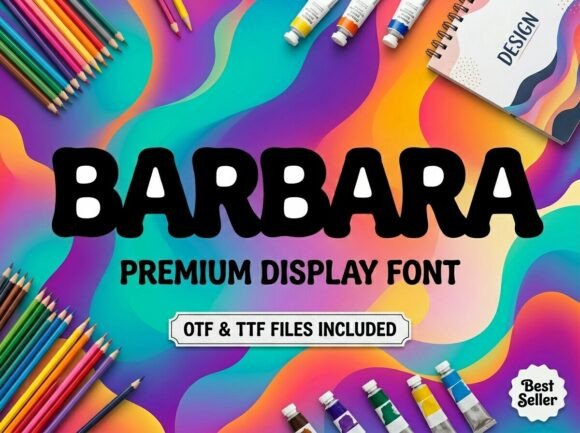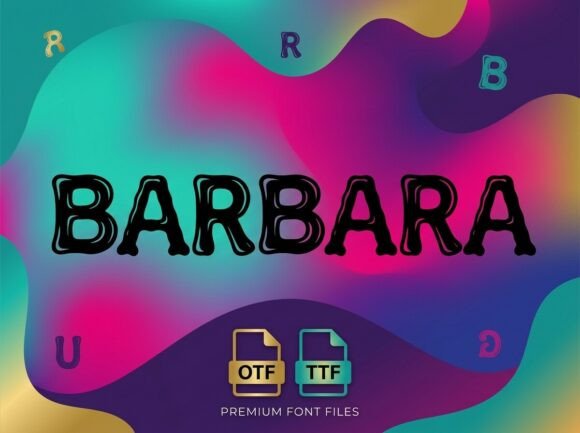
Introducing Barbara Font: A Stunning Decorative Display Font
Are you tired of using the same old fonts for your designs? Look no further than Barbara Font, a unique and artistic display font that’s sure to turn heads. This stunning font is designed to be the center of attention, featuring bold and eye-catching elements that will elevate your designs to the next level.
A Font that Breaks Away from the Ordinary
Barbara Font is perfect for creators who want to add a touch of personality to their work. With its strong visual personality and unique artistic elements, this font is sure to make your designs stand out from the crowd. Whether you’re working on a bold headline, artistic logo, or creative packaging, Barbara Font is the perfect choice.
Versatile and Professional
One of the best things about Barbara Font is its versatility. This font is not only perfect for bold and eye-catching designs, but it’s also professional and polished enough for use in a variety of applications. Whether you’re working on a business logo, product packaging, or marketing materials, Barbara Font is sure to make a lasting impression.
Why Choose Barbara Font?
So why choose Barbara Font over other display fonts on the market? Here are just a few reasons:
- Unique and Artistic: Barbara Font features unique artistic elements that will add a touch of personality to your designs.
- Versatile: This font is perfect for a variety of applications, from bold headlines to artistic logos and creative packaging.
- Professional and Polished: Despite its bold and eye-catching design, Barbara Font is professional and polished enough for use in a variety of applications.
How to Use Barbara Font
Barbara Font is perfect for a variety of design applications, including:
- Headlines and Titles: Use Barbara Font to create bold and eye-catching headlines and titles that will grab attention.
- Logos and Branding: This font is perfect for creating unique and artistic logos that will help your brand stand out.
- Packaging and Product Design: Use Barbara Font to add a touch of personality to your product packaging and design.
- Marketing Materials: This font is perfect for creating eye-catching marketing materials, such as flyers, brochures, and posters.
If you’re looking for a unique and artistic display font that will elevate your designs to the next level, look no further than Barbara Font. With its strong visual personality, versatility, and professional polish, this font is perfect for creators who want to break away from the ordinary. So why wait? Purchase Barbara Font today and start creating stunning designs that will leave a lasting impression.